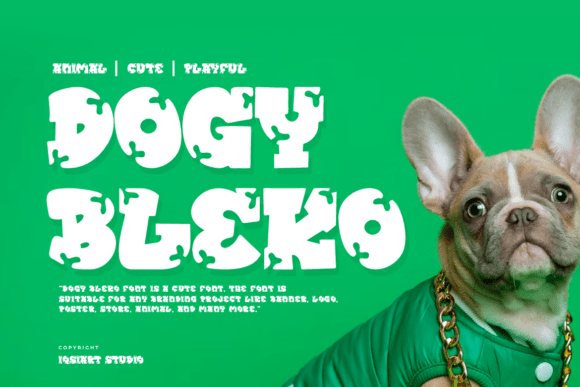
Meet Your New Best Friend: Dogy Bleko Font
Who hasn’t experienced that moment when they stumble upon a cute illustration of a puppy and can’t help but smile? That’s exactly the kind of creative spark that inspired the creation of Dogy Bleko Font – an irresistibly cute and playful display font that brings a dose of happiness to any project. With its rounded, whimsical letterforms and puzzle-like design, this charming typeface is the perfect companion for designers looking to add a touch of warmth and personality to their work.
Whether you’re working on children’s merchandise, pet branding, or playful packaging, the Dogy Bleko Font is an invaluable asset that will bring your designs to life. Its unique design makes it a standout choice for digital content, and its versatility ensures that it will always be up to the task. By incorporating the Dogy Bleko Font into your projects, you’ll be sure to bring a smile to your audience’s faces.
Dogy Bleko Font Key Features
- Unique Characteristics: The font features a unique blend of modern and vintage elements, with distinctive letterforms and ornaments that add a touch of elegance and sophistication.
- Kerning and Ligatures: The font includes advanced kerning and ligature pairs, ensuring smooth and even spacing between letters and enhancing overall readability.
Dogy Bleko Font Review
I recently had the chance to work with the Dogy Bleko Font, and I must say it’s a mixed bag. There are some aspects that shine, but others that fall short.
- The Dogy Bleko Font has a unique, playful feel that’s perfect for whimsical designs and projects that need a bit of personality.
- The font’s irregularities and imperfections give it a hand-crafted feel that’s hard to replicate with more polished fonts.
- The font’s letterforms are well-designed, with clear distinctions between each character and a consistent flow throughout the alphabet.
- The font’s irregularities can also make it difficult to read in certain contexts, particularly at smaller font sizes or in crowded text.
- The font’s uniqueness can also make it harder to pair with other fonts, as it can be quite bold and attention-grabbing.
- The font’s design may not be suitable for formal or professional projects, as it can come across as too playful or immature.
Overall, I think the Dogy Bleko Font is a great choice for projects that need a bit of personality and flair. However, it may not be the best fit for every project, and designers should be mindful of its limitations when selecting it for their designs.
Tips for Getting the Most Out of Dogy Bleko Font
Use Dogy Bleko Font to add a unique and playful touch to your designs. Experiment with different font sizes, colors, and combinations to create visually appealing effects.
Dogy Bleko Font is ideal for:
- Playful marketing campaigns
- Quirky social media graphics